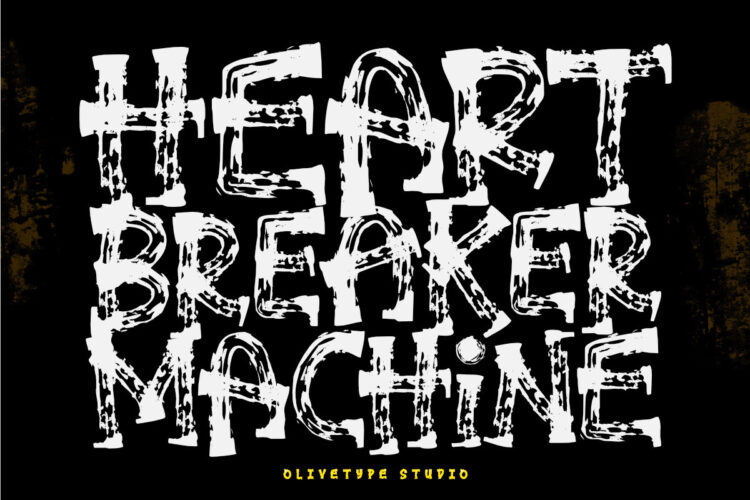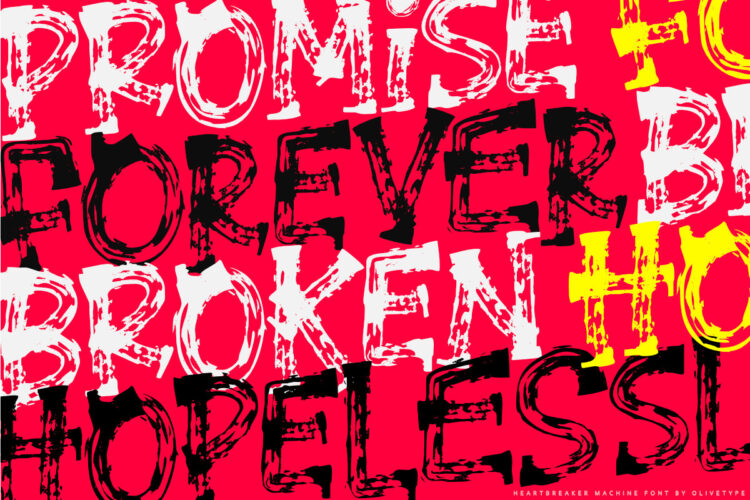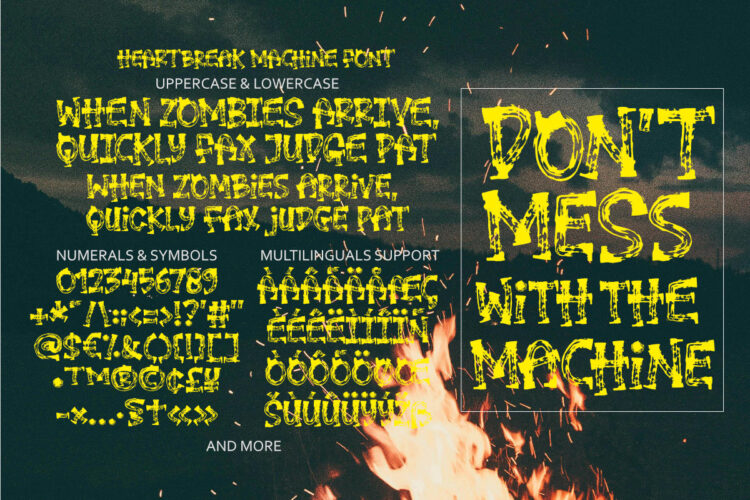
Introducing Heartbreaker Machine, a brush font that transforms your designs with a unique blend of rugged texture and masculine flair. This versatile typeface is suitable for making bold statements in headlines, posters, movie titles, and product packaging. It doesn’t just convey words—it imbues them with character and depth. Embrace the power of typography with this captivating font; let it be the heartbeat of your next masterpiece.